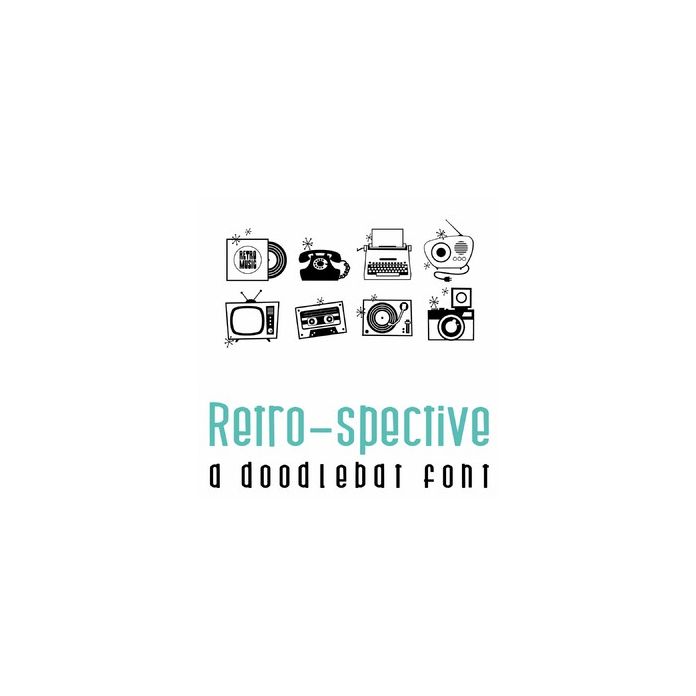
Retro-Spective Doodlebat Font
This fun retro doodlebat font features 26 retro styled images perfect for cards, crafts, parties, decor, scrap book pages, planner stickers and more!